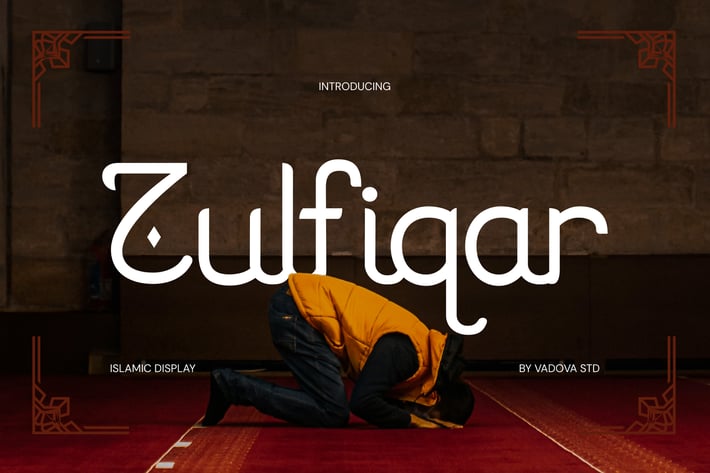
Zulfiqar Creative Script Font
Zulfiqar Islamic Elegant Font is a captivating Islamic display font that exudes a sense of reverence and cultural depth. Its style is a harmonious blend of traditional inspiration and contemporary design, creating a distinctive and impactful visual presence. The font carries an energy that is both powerful and graceful, reminiscent of historical calligraphy yet with a modern sensibility.
This font is ideally suited for a market seeking authentic and respectful visual communication, such as religious institutions, cultural events, Islamic art exhibitions, educational materials, or even fashion brands that incorporate modest aesthetics. The letterforms are characterized by their smooth curves and strong, confident strokes, giving them a handcrafted yet refined appearance. Each character feels thoughtfully shaped, contributing to an overall sense of artistry.
Zulfiqar Islamic Elegant Font Suitable for* designs, including headlines, logos, posters, invitations, greeting cards, artistic expressions, wedding stationery, personal branding, certificates, T-shirt graphics, social media posts, product packaging, traditional publications, web content, app interfaces, corporate branding, technical documents, gaming interfaces, and designs requiring a playful, artistic, raw, or nostalgic aesthetic.